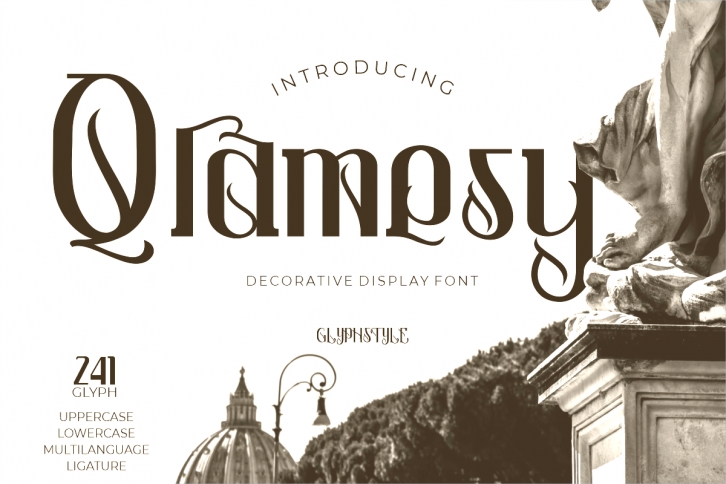
Qramesy is a stunning blackletter font made in retro and vintage style. With its bold shape and combined with creative décor, this font looks beautiful.
Qramesy is perfect for branding projects, logos, wedding designs, social media posts, advertisements, product packaging, product designs, labels, photography, watermarks, invitations, stationery, and any project that requires a decorative blackletter font.